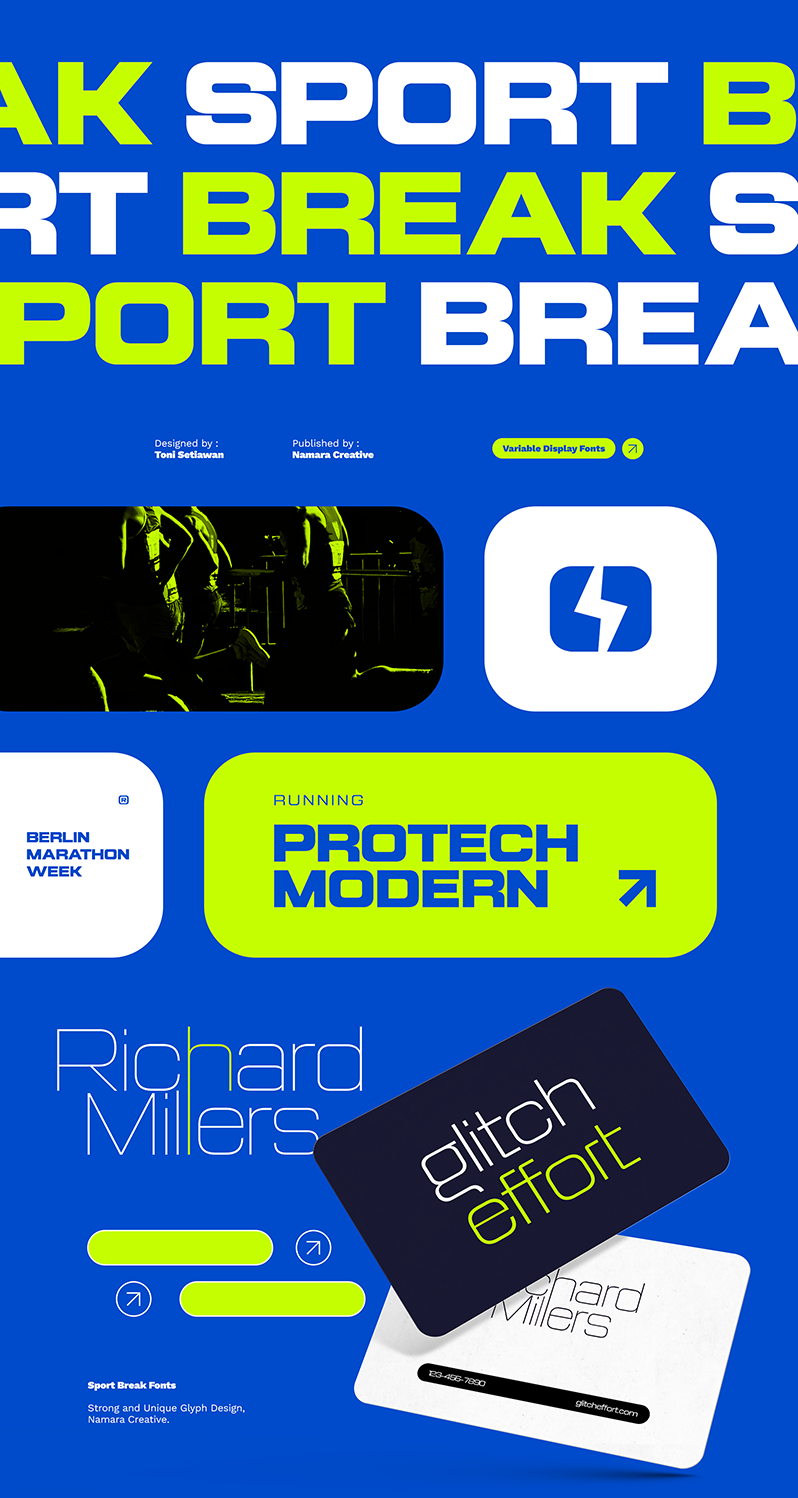
Sport Break
Sport Break is a modern sport-inspired variable typeface designed to boost the energy of any visual project. With bold rounded cuts corner, and high-impact proportions, this font delivers a fast, powerful, and futuristic impression. perfect for brands that want to stand out with confidence. NOTE : - This font is PERSONAL USE ONLY, NO COMMERCIAL USED ALLOWED. - Link to purchase Full Version and Commercial license here https://onedsgn.com/product/sport-break-variable/